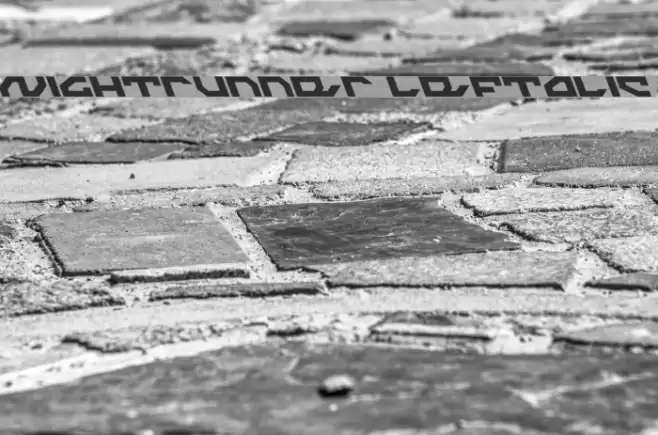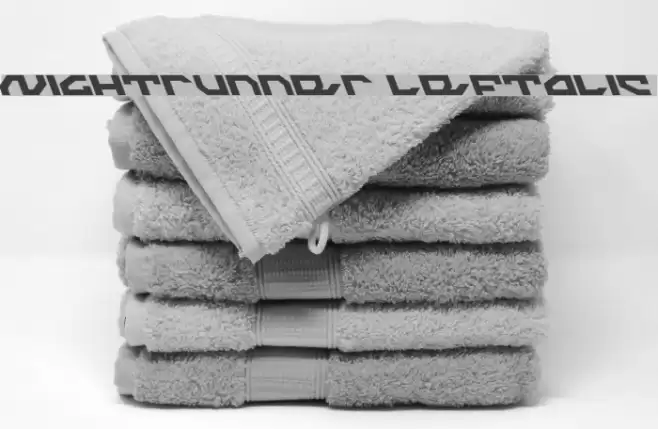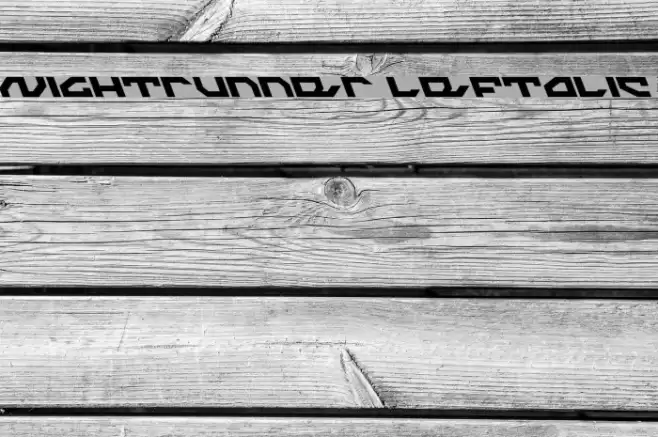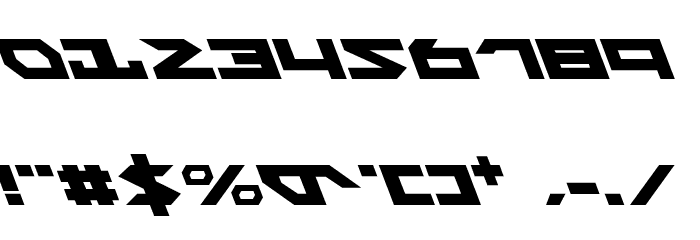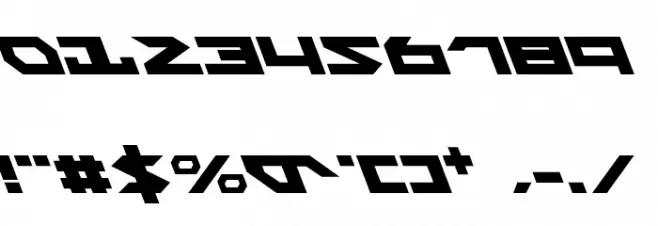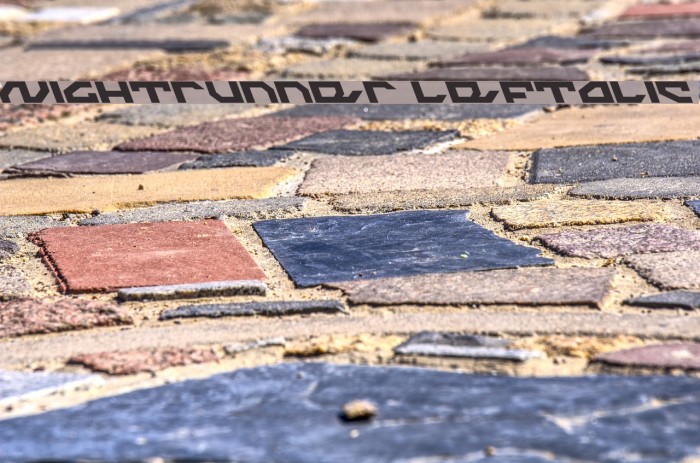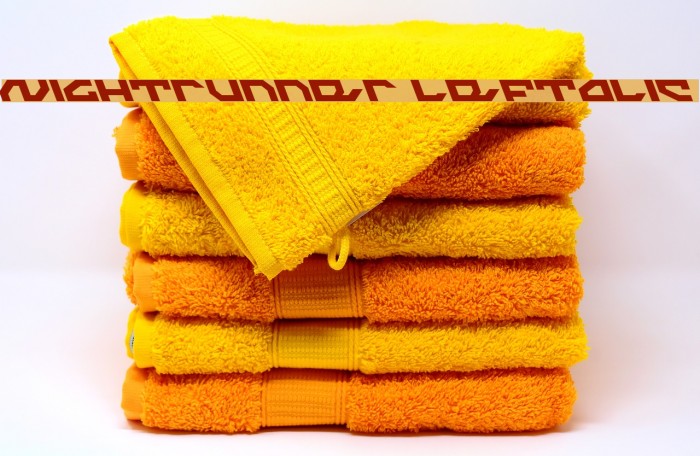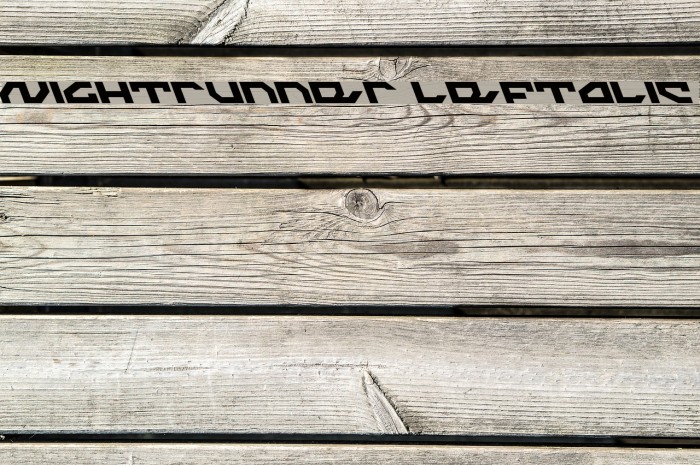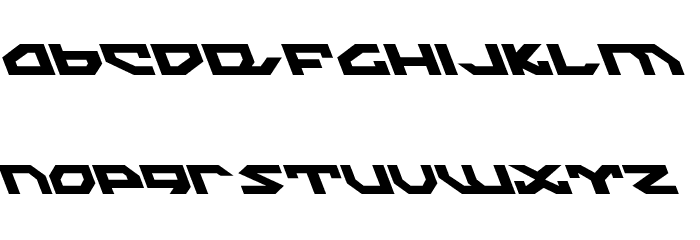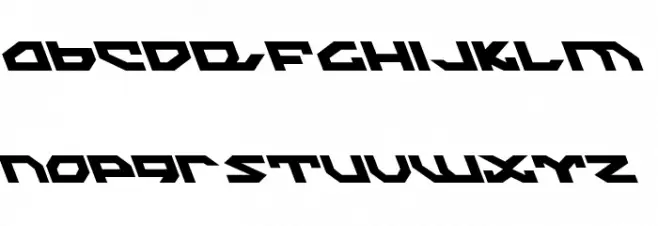
Nightrunner Leftalic Font
Nightrunner Leftalic Description
This font features a bold, angular design with a futuristic and edgy aesthetic. The characters are sharply cut with a distinct slant, giving them a dynamic and forward-moving appearance. The uppercase and lowercase letters maintain a consistent style, with strong geometric shapes and a sense of motion. Numbers and special characters follow the same angular theme, providing a cohesive look across all glyphs. The font's unique style makes it stand out, ideal for projects that require a modern and striking visual impact.
A bold, angular font with a futuristic and dynamic style from Sci-fi fonts.
- Proposed Projects: Ideal for sci-fi themed designs, video game graphics, tech branding, and modern posters.
- Overall Style: Futuristic